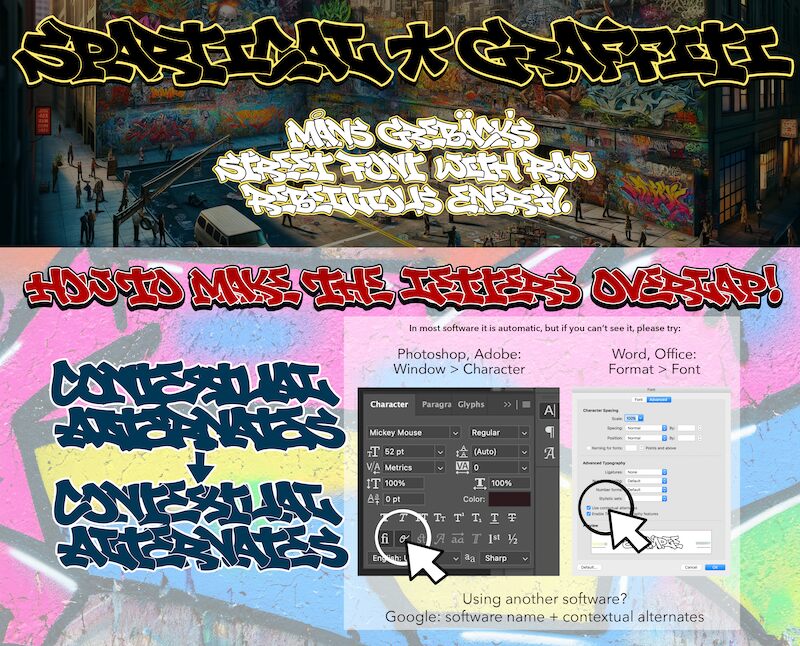
Spartical Graffiti by Mans Greback is a bold, expanded graffiti-inspired font that exudes a raw, urban energy. With its striking, angular letterforms and dynamic flow, this typeface captures the essence of authentic street art. The distinct character shapes and unorthodox layout create a captivating visual impact, making it a compelling choice for projects seeking a bold, eye-catching aesthetic.
Spartical Graffiti's versatility shines through its ability to seamlessly integrate into a wide range of design applications. Its expansive width and robust weight lend themselves exceptionally well to attention-grabbing headlines, impactful branding, and dynamic poster designs. Whether crafting an edgy urban campaign, emphasizing a powerful message, or infusing a creative project with a gritty, rebellious spirit, Spartical Graffiti by Mans Greback offers a unique typographic solution that demands attention.
Spartical Graffiti captures the raw energy and vibrant spirit of hip hop and street culture.
Activate contextual ligatures to make the letters overlap!